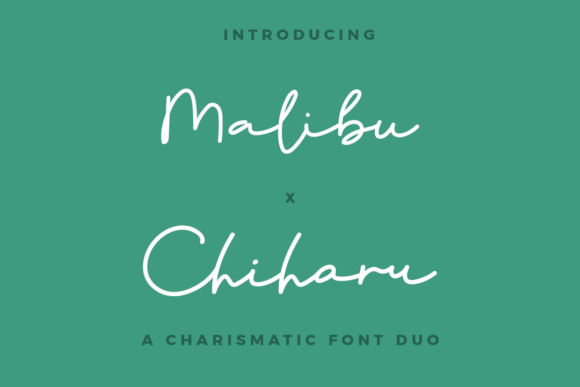
Madeline and Chiharu Duo Font
About the Madeline and Chiharu Duo Font
Get ready to be inspired by Madeline and Chiharu Duo Font, a fresh and dynamic typeface for modern creators. Introducing Madeline and Chiharu – an enchanting duo of handwritten fonts, intricately crafted to bring a sense of elegance and whimsy to your designs. With sensual curves and graceful strokes, these love-inspired cursive fonts invite a touch of personal intimacy, mirroring the natural flow of handwritten scripts. Explore the realm of design with the charm of Madeline and the gracefulness of Chiharu, two timeless handwritten fonts that bring a lovely cursive touch to any design canvas.
Madeline and Chiharu excel in projects requiring a touch of romantic elegance: wedding invitations, stationery, or branding for luxury goods. Their delicate nature makes them unsuitable for body text or UI elements where readability is paramount. Avoid using them for lengthy paragraphs or small sizes.
The fonts’ inherent charm is best complemented by pairing them with clean sans-serif fonts like Montserrat or Lato for contrast, or a more geometric sans-serif like Futura for a modern feel. For a softer contrast, consider a serif typeface such as Playfair Display or Merriweather.
Madeline and Chiharu possess a distinctly feminine and whimsical personality, best suited for brands emphasizing handcrafted quality, intimacy, or a vintage aesthetic. Avoid using them for projects demanding a bold, modern, or minimalist approach.
Madeline and Chiharu Duo Font Usage Examples
Madeline and Chiharu Duo Font Example